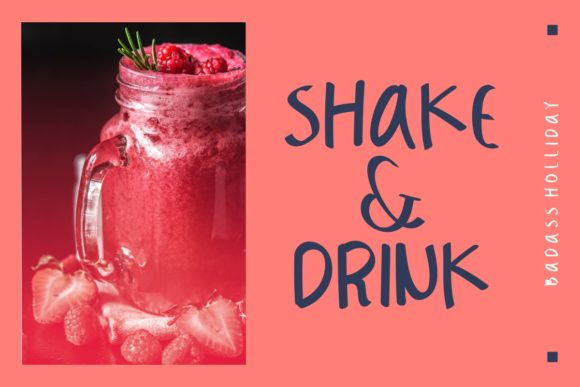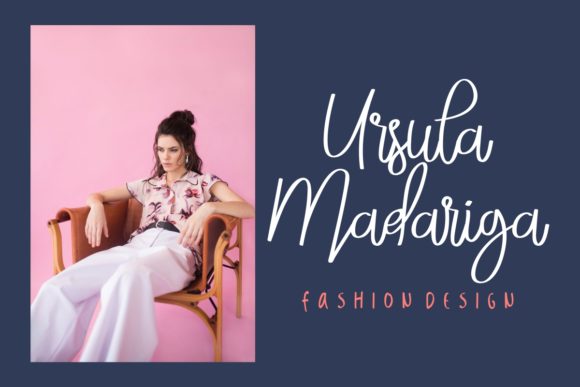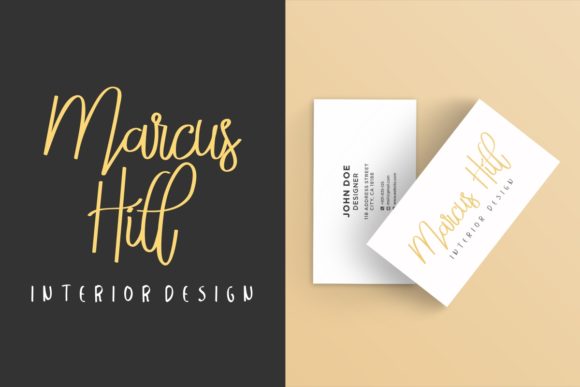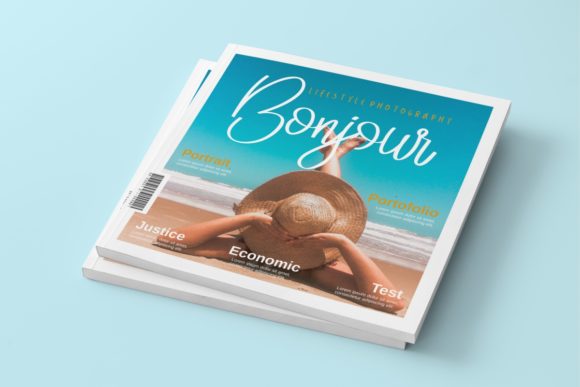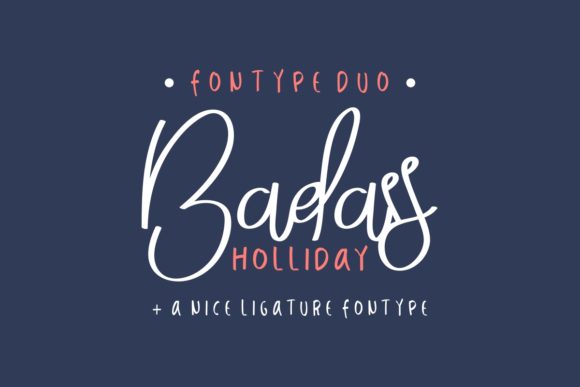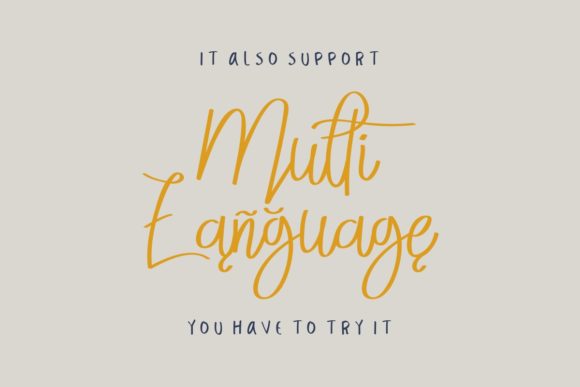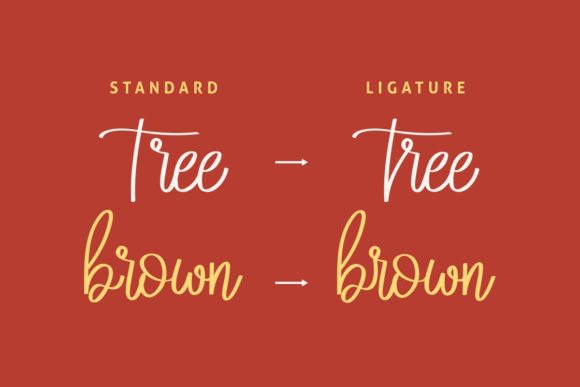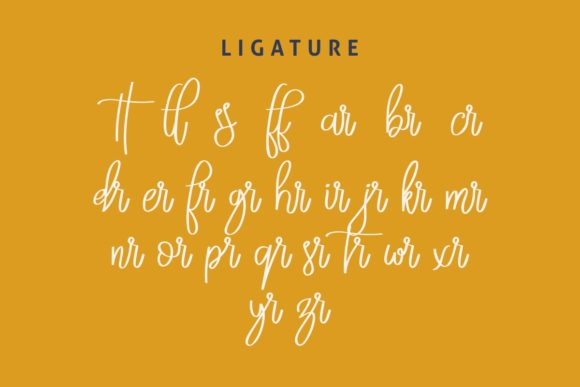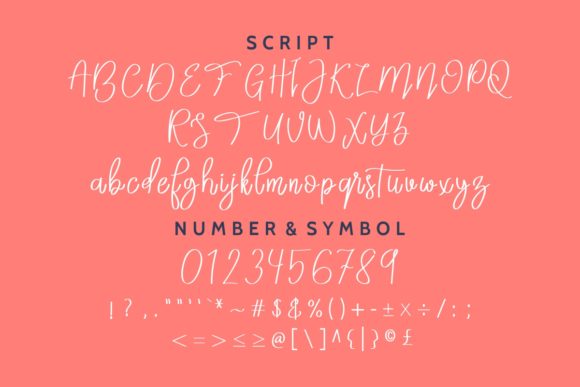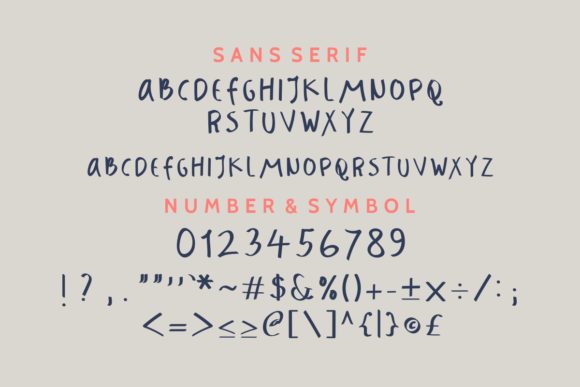
Badass Holliday Duo Font
About Badass Holliday Duo Font
Badass Holliday is a stunning font duo that celebrates all things Holiday. Get inspired by these two amazing fonts!